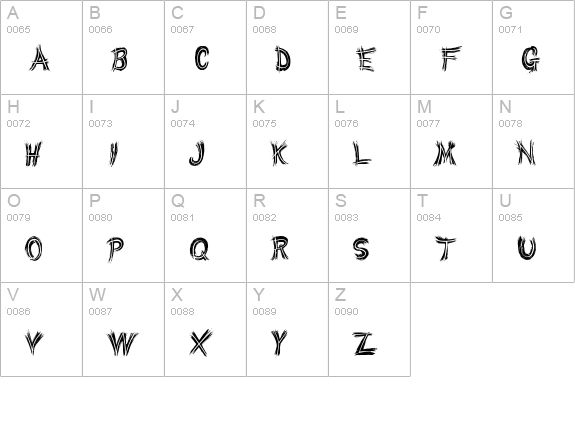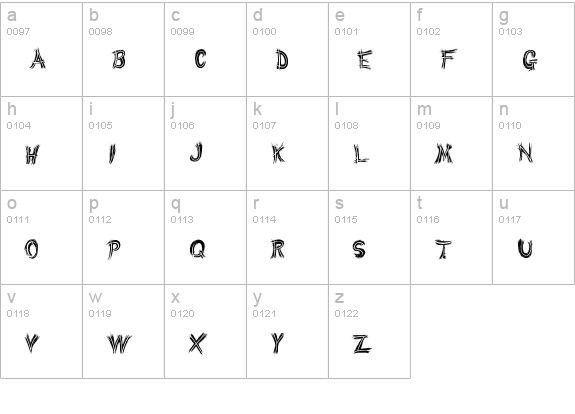
WereWolf Font Details
Introducing WereWolf font, a captivating and mysterious typeface that will unleash a new level of creativity in your design projects. With its intricate and intricate details, this font embodies the primal essence of the legendary creature it is named after. WereWolf font is the perfect choice for those looking to add a touch of dark elegance to their designs. Its sharp edges and gothic-inspired elements exude an aura of power and mystery, making it ideal for branding, logo design, packaging, and more. Whether you're working on a horror-themed project, a fantasy novel cover, or simply want to add a unique twist to your typography, WereWolf font will make a lasting impression. One of the best features of WereWolf font is that it is available for free. Yes, you read that right! This striking font is freely available to download at FontsMarket.com. Now, you can bring your designs to life without breaking the bank. Designed with utmost attention to detail, WereWolf font offers a wide range of glyphs, including uppercase and lowercase letters, numbers, punctuation marks, and special characters. Its versatility allows you to create eye-catching headlines, captivating body text, or even combine different styles for a truly unique look. Don't let your designs be ordinary. Set them apart with the enchanting allure of WereWolf font. Download this remarkable typeface today from FontsMarket.com and unleash your creativity like never before.